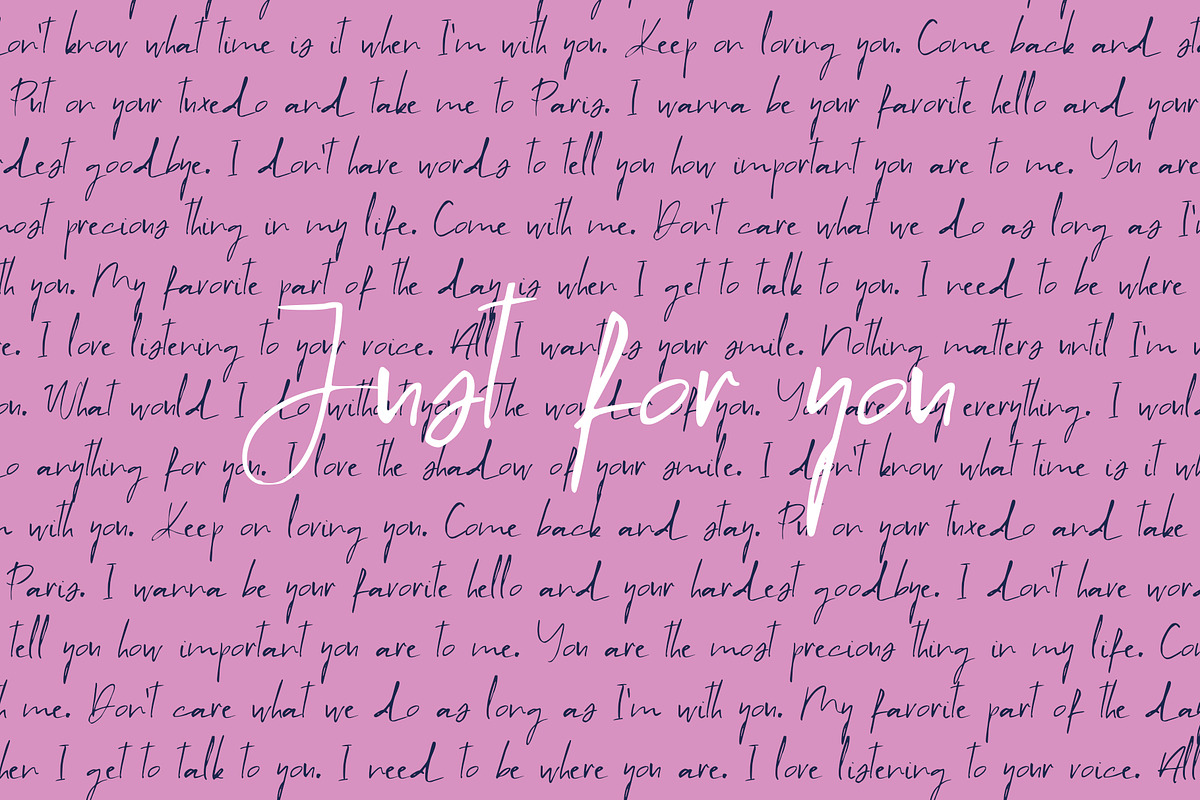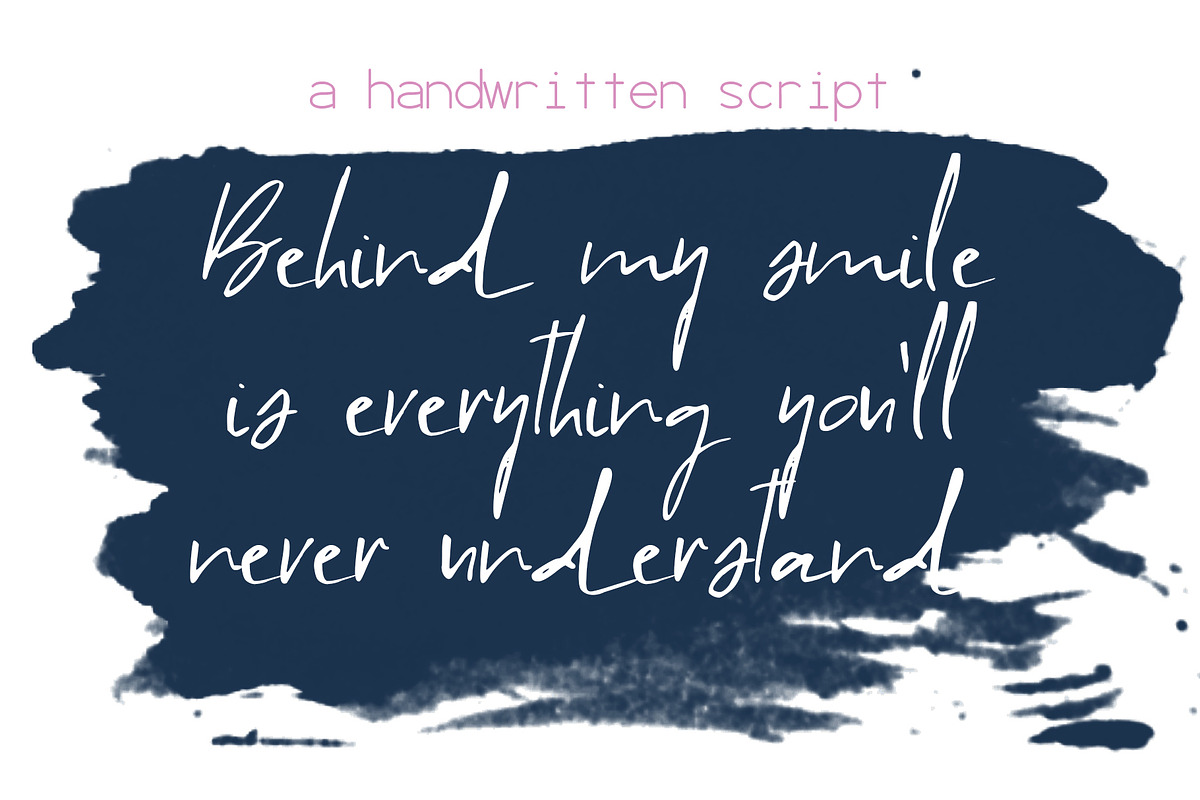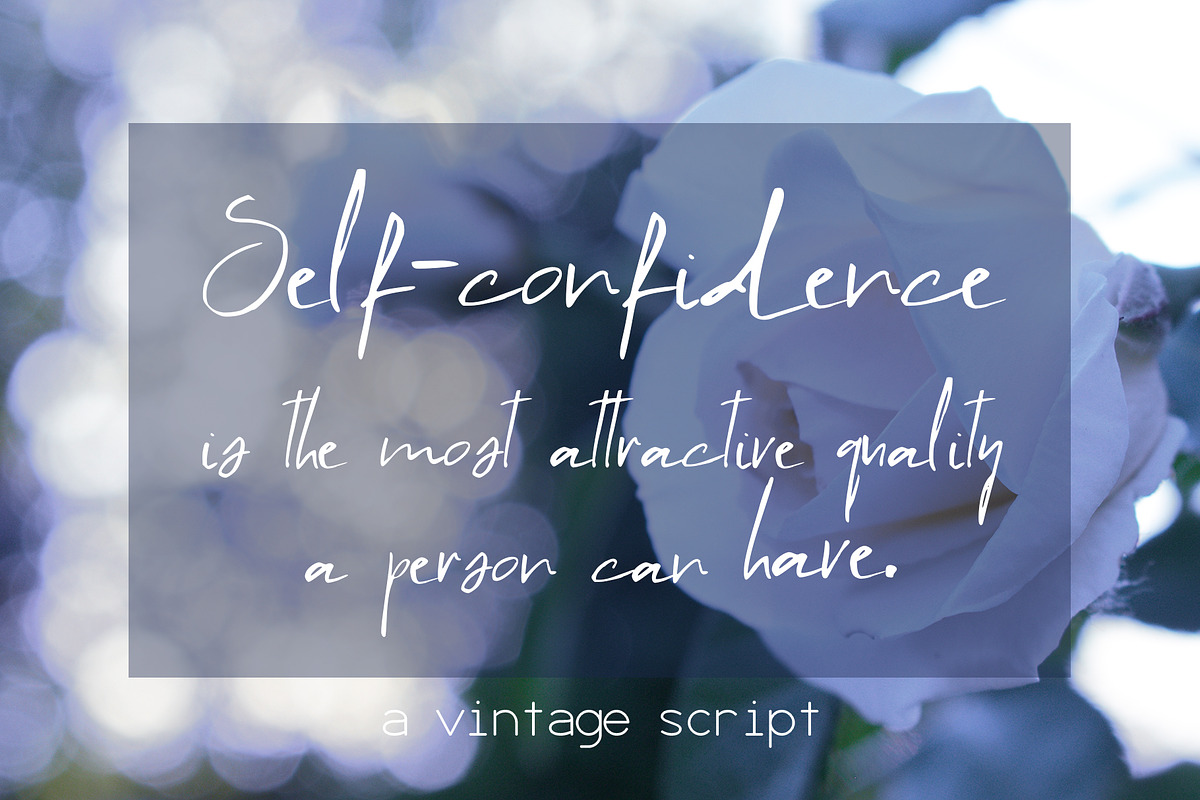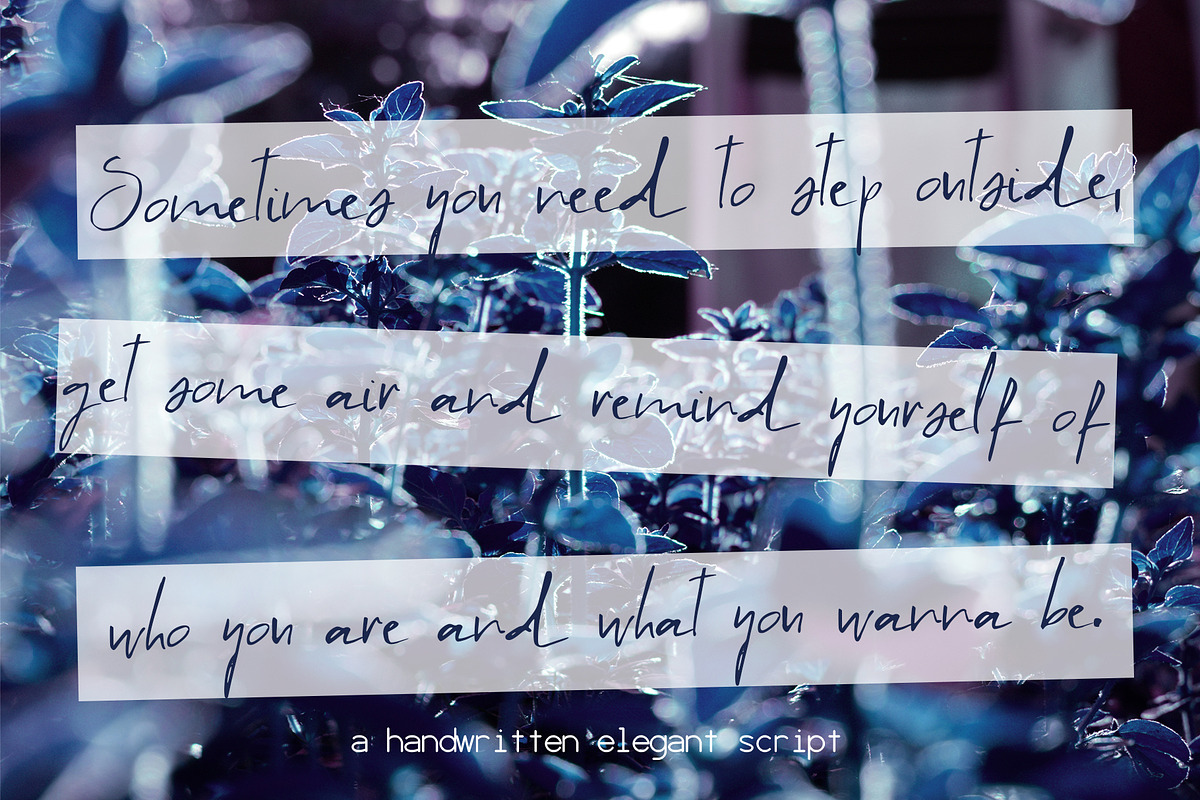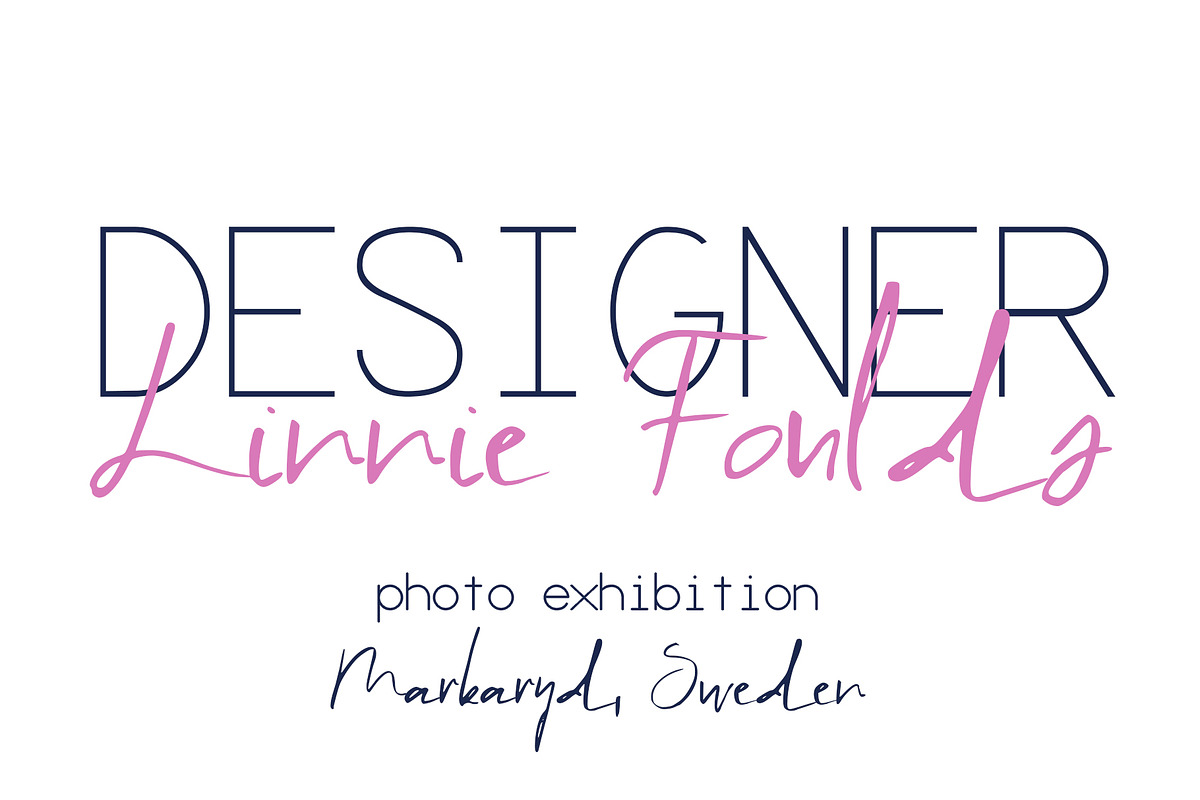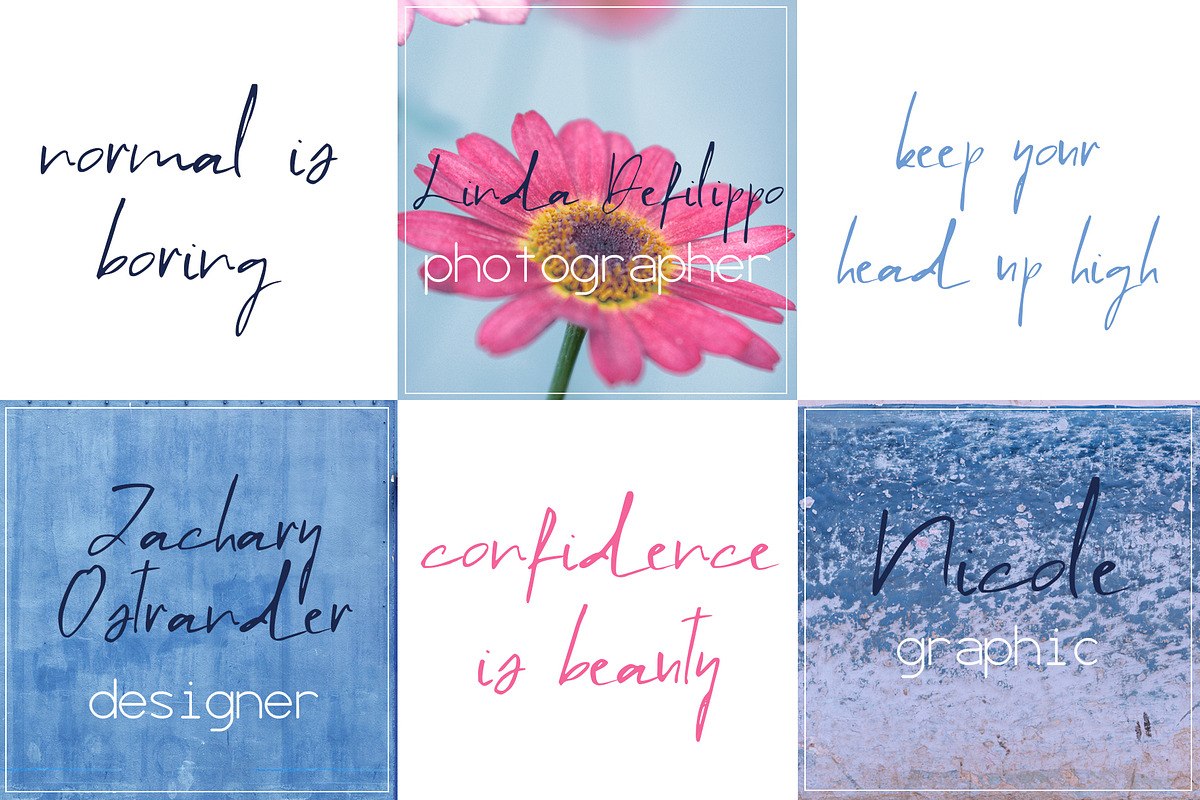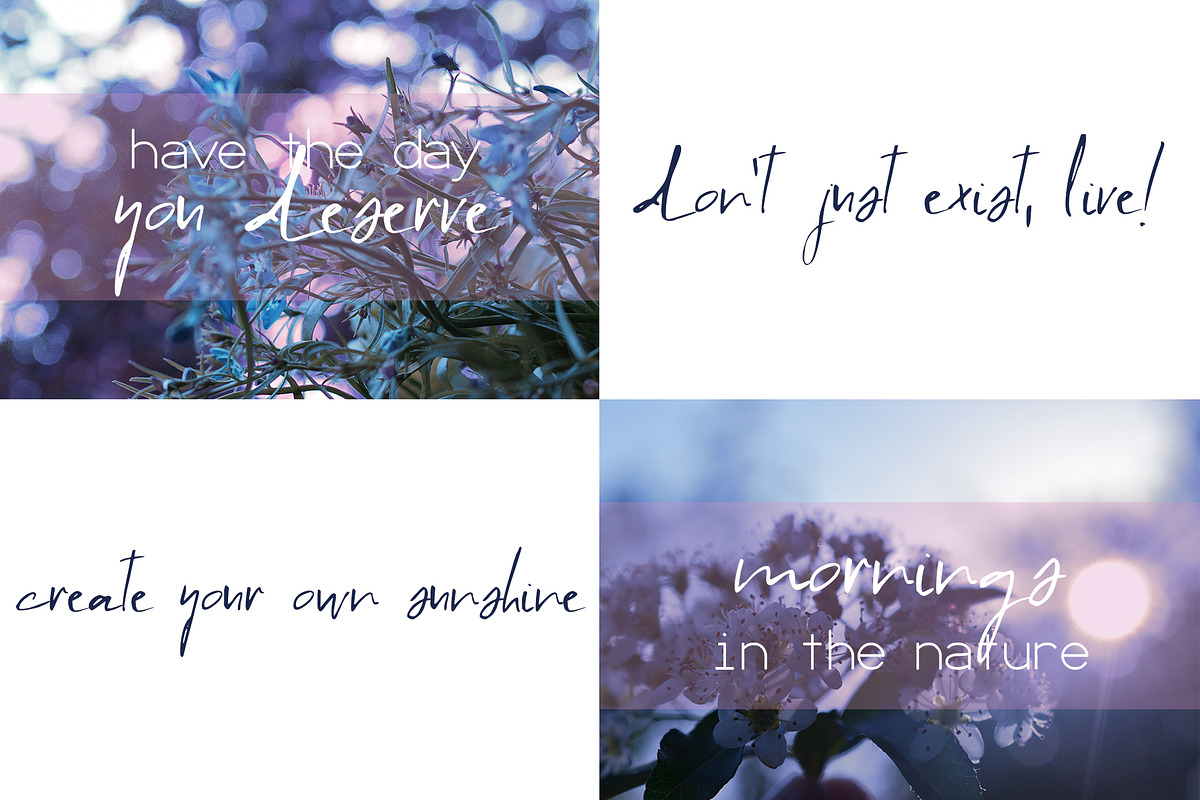
Moccem Font
Introducing Moccem, an elegant vintage script.💗 Perfect for any graphic and logo designs, wedding and birthday invitations.
- Moccem font contains uppercase & lowercase characters, numbers and punctuations.